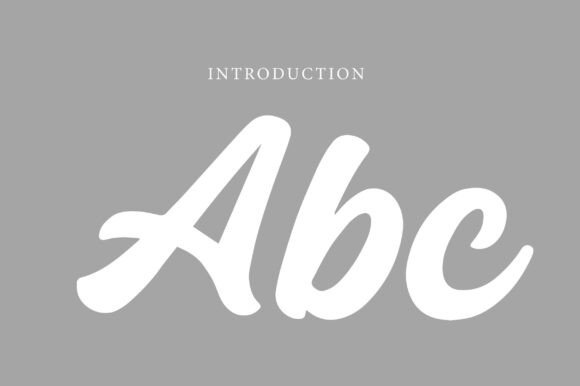
Introduction to Mystical Baby Font Font
Fonts play a crucial role in design, and the Mystical Baby Font font is a typeface that brings both character and versatility to any project. Whether you’re working on a branding project, a website, or a print design, the Mystical Baby Font font offers a unique style that can elevate your work.
Mystical Baby is a sweet and expressive retro script font designed to bring charm, warmth, and personality into your designs.
With its bold flowing strokes, rounded letterforms, and playful handwritten style, this font creates a fun and friendly look that feels both nostalgic and modern Whether you are creating kids branding, baby product packaging, nursery decor, birthday invitations, social media graphics, stickers, or cute logo designs, this font helps your typography stand out in a lovable and memorable way.
Key Features of Mystical Baby Font Font
Why Choose Mystical Baby Font Font?
The Mystical Baby Font font is more than just a typeface – it’s a design tool that helps you communicate your message with style and clarity. Its unique character set and versatile design make it suitable for a wide range of applications, from elegant invitations to bold headlines.
With its carefully crafted letterforms and balanced proportions, the Mystical Baby Font font ensures readability and visual appeal across all mediums.
What makes Mystical Baby Font font special?
The Mystical Baby Font font stands out with its unique design, exceptional readability, and versatility across various design applications.